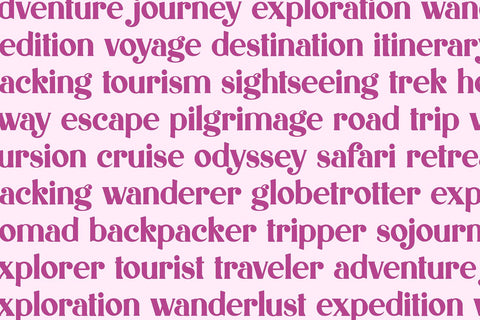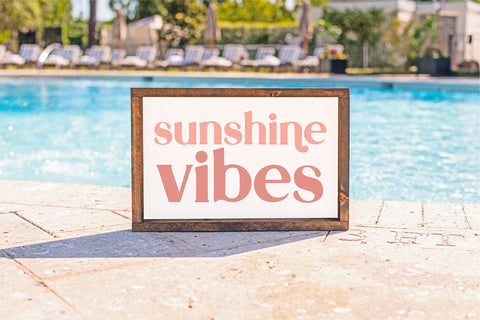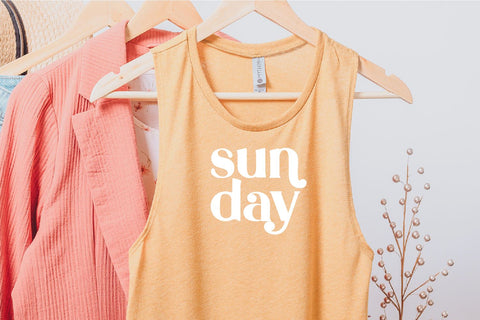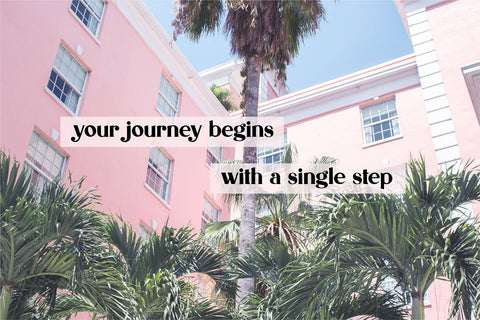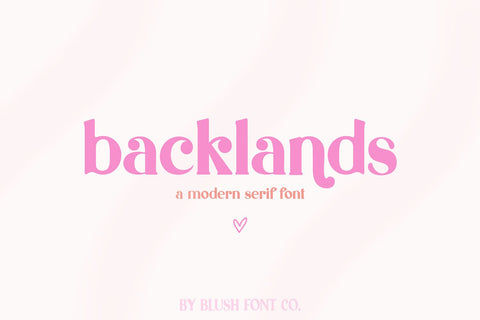
Backlands Modern Serif Font
"Backlands" a bold serif display font.
This font is a modern serif font that is perfect for social media or crafty projects. Use it for branding, crafts for decor, invitations, and more! Upper and lowercase glyphs, numbers, punctuation marks, and a couple extra characters.